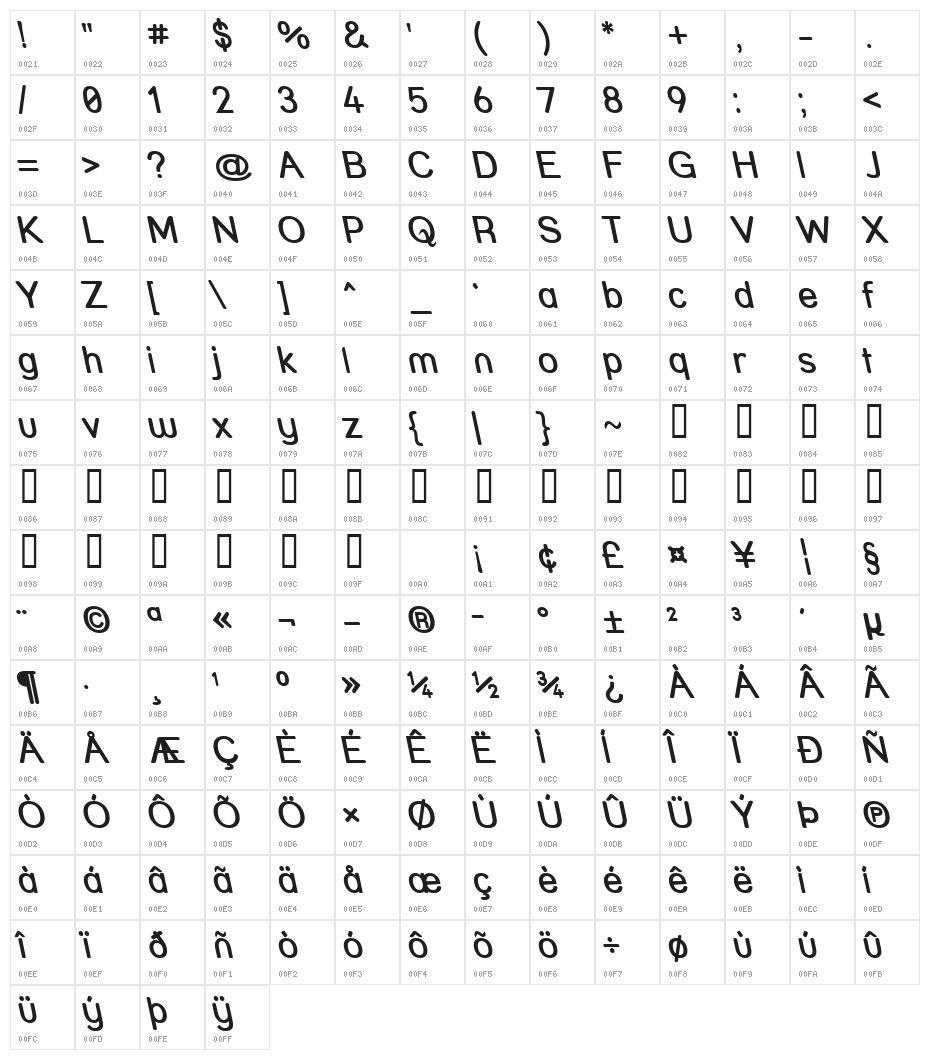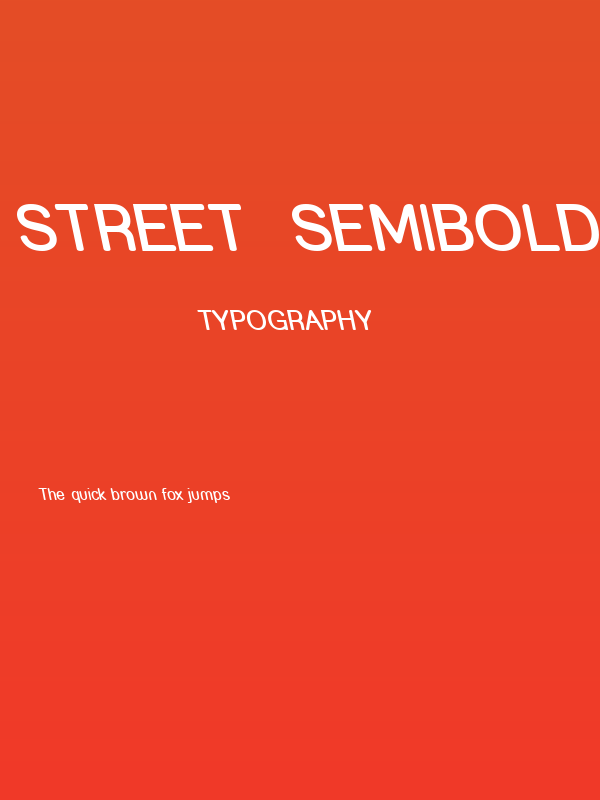
Street SemiBold Rev Font
Street SemiBold Rev Description
This font features a clean and modern sans-serif style with a semi-bold weight, making it highly legible and versatile for various design applications. The characters are rounded and smooth, providing a friendly and approachable appearance. The uppercase and lowercase letters maintain a consistent style, with slightly wider proportions that enhance readability. The numerals are clear and distinct, while the special characters are well-integrated, ensuring a cohesive look across all text elements. This font is suitable for both digital and print media, offering a contemporary aesthetic that can adapt to different contexts.